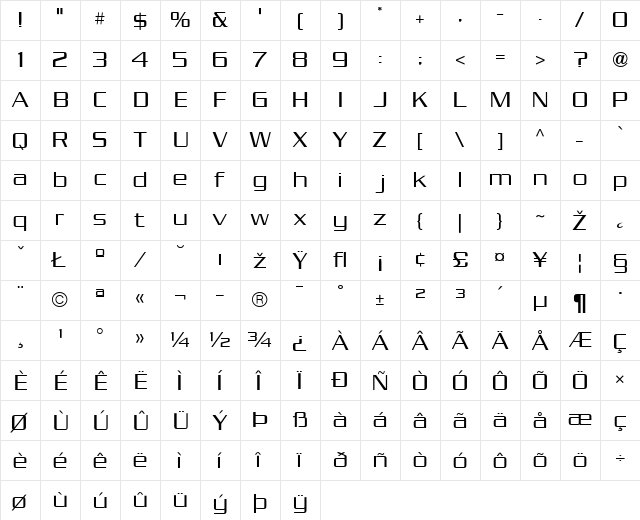
SerpentineSans-Light Regular
SerpentineSans-Light is a composed and adaptable typeface that performs quietly and consistently across a wide range of design contexts. Its slender proportions lend an understated elegance to any composition.